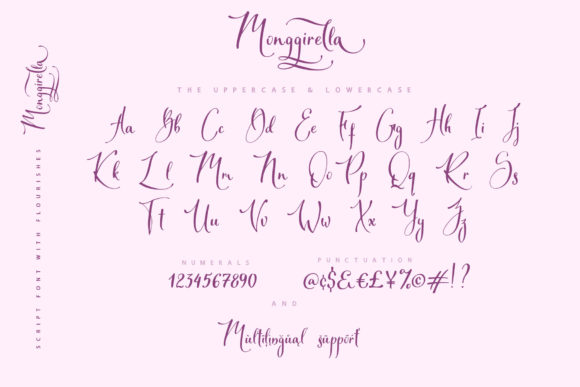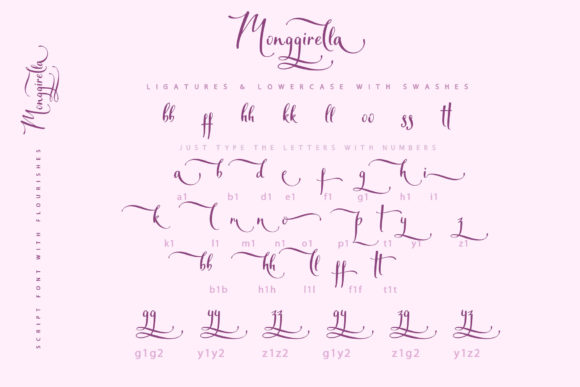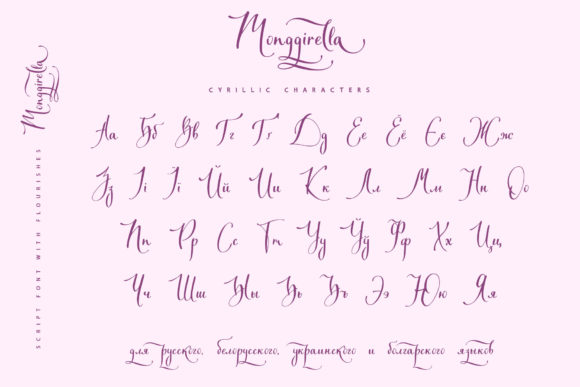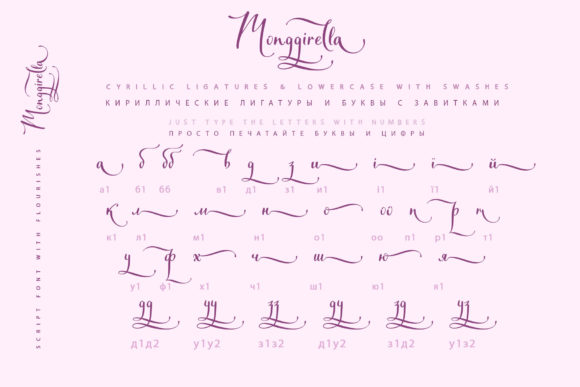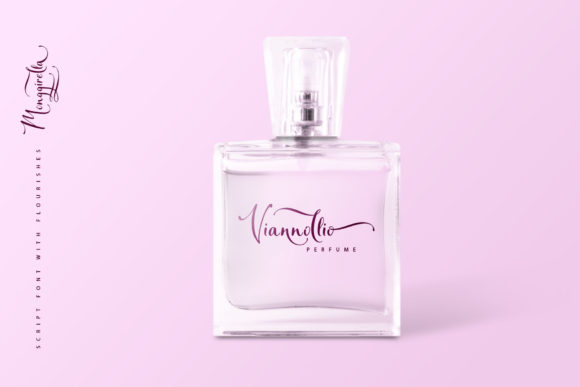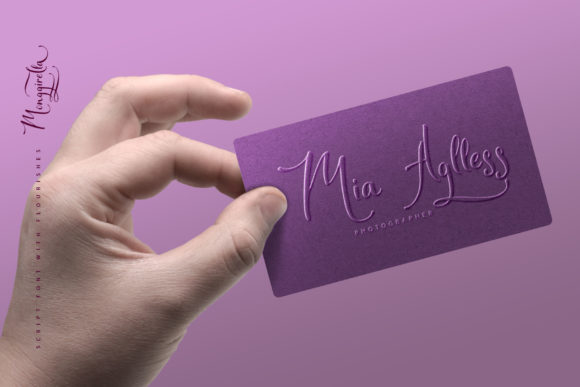
Introduction to Monggirella Font
Have you ever found yourself staring at a blank page, trying to come up with the perfect design for a special project? Maybe it’s a wedding invitation for a dear friend, or a logo for a new business venture. Whatever the case, the right font can make all the difference. That’s where the Monggirella Font comes in – a delicate and timeless handwritten font that’s sure to add a touch of elegance to any design.
As a designer, you know the value of having high-quality design resources at your fingertips. The Monggirella Font is a valuable addition to any creative project, offering a transparent background and stunning alternates that are easy to access with its PUA encoding. With its varying baseline and smooth lines, this font is perfect for creating beautiful designs that stand out from the crowd.
Key Features of Monggirella Font
- Supports a transparent background, allowing for seamless integration into various design elements.
- Unique, handcrafted design makes it an excellent choice for adding a personal touch to creative projects.
Honest Review: Monggirella Font
I recently stumbled upon the Monggirella Font while searching for a unique font to enhance my design project. Overall, I was impressed with its potential and versatility. Here’s my honest take on this font.
- High-quality design: The Monggirella Font is well-designed, with a clean and modern aesthetic that’s perfect for creative projects.
- Transparent background: The font’s transparent background makes it easy to use as a design element, allowing you to layer it with other graphics or images.
- Limited character set: The Monggirella Font has a limited character set, which may not be suitable for projects that require a wide range of characters.
- Lack of bold weights: The font is available in a limited range of weights, which may not be ideal for projects that require bold or heavy text.
Overall, I think the Monggirella Font is a great addition to any designer’s toolkit. While it has some limitations, its unique design and free availability make it a valuable resource for creative projects. With a little creativity, you can make the most of this font and achieve amazing results.
Design Resource and Tips
The Monggirella Font is commonly used for branding, logos, and marketing materials. It’s also great for creating digital products, such as ebooks and presentations, and for adding a touch of elegance to web design projects.